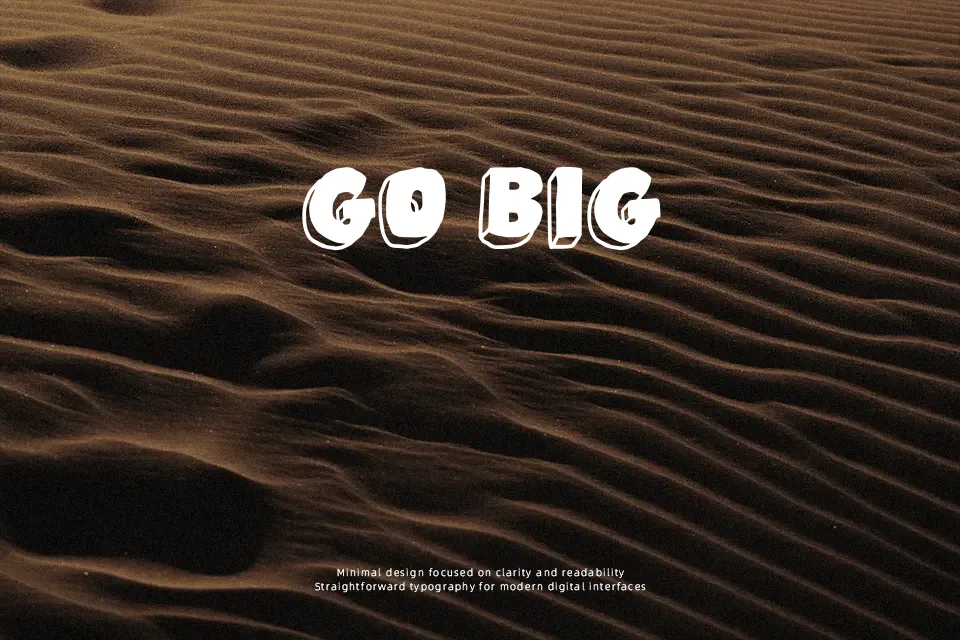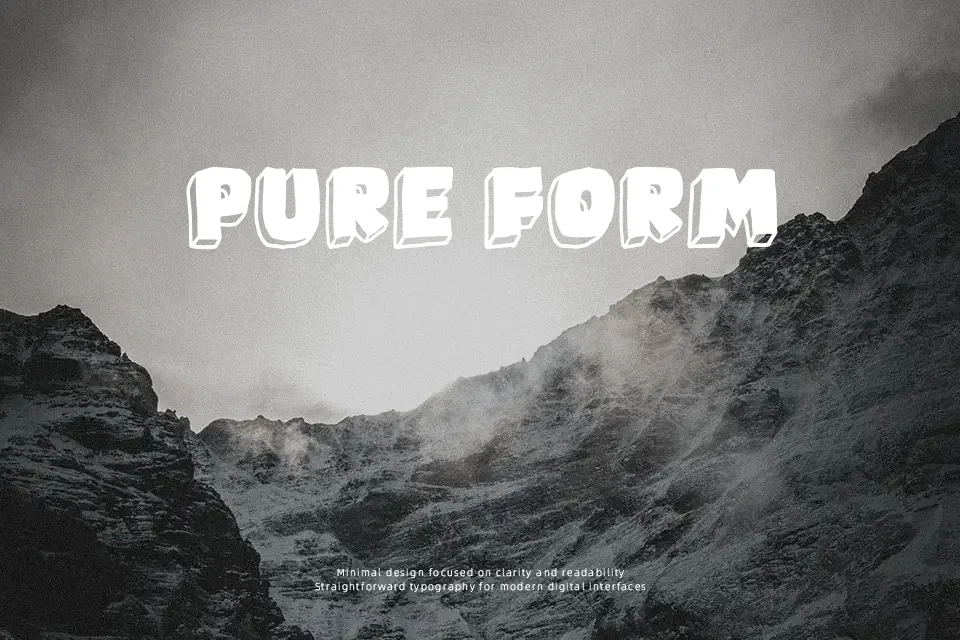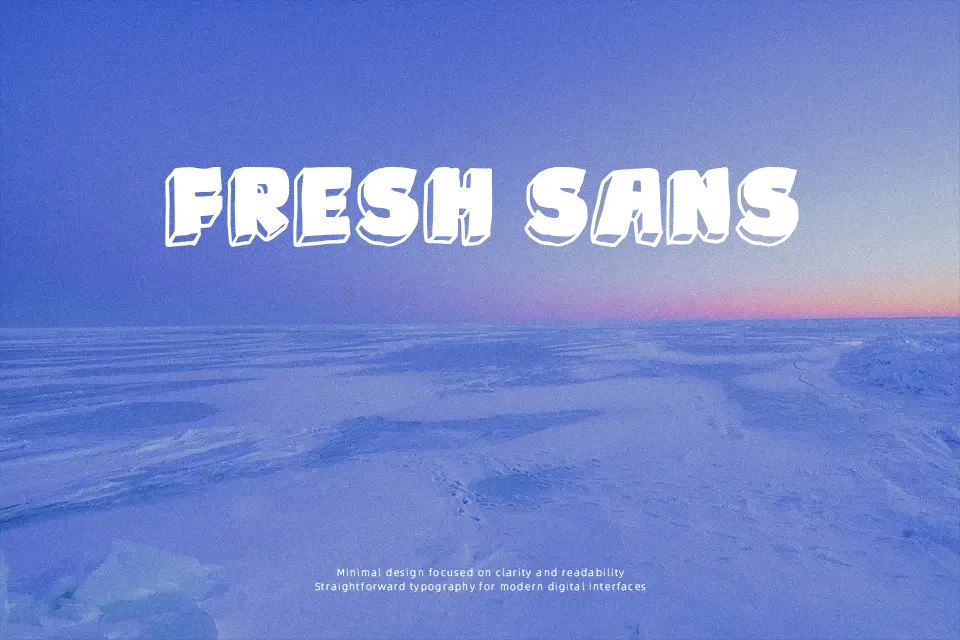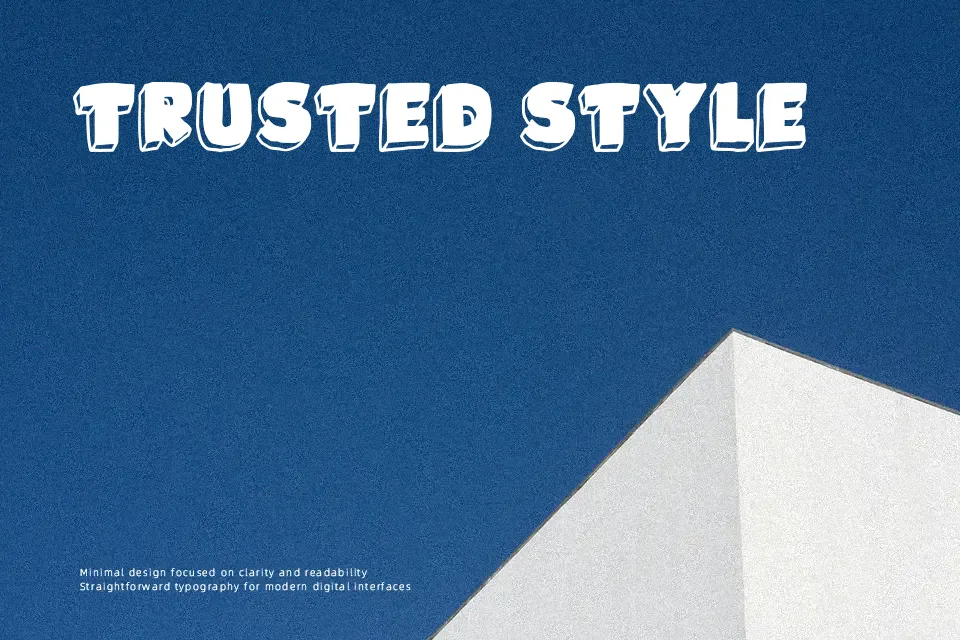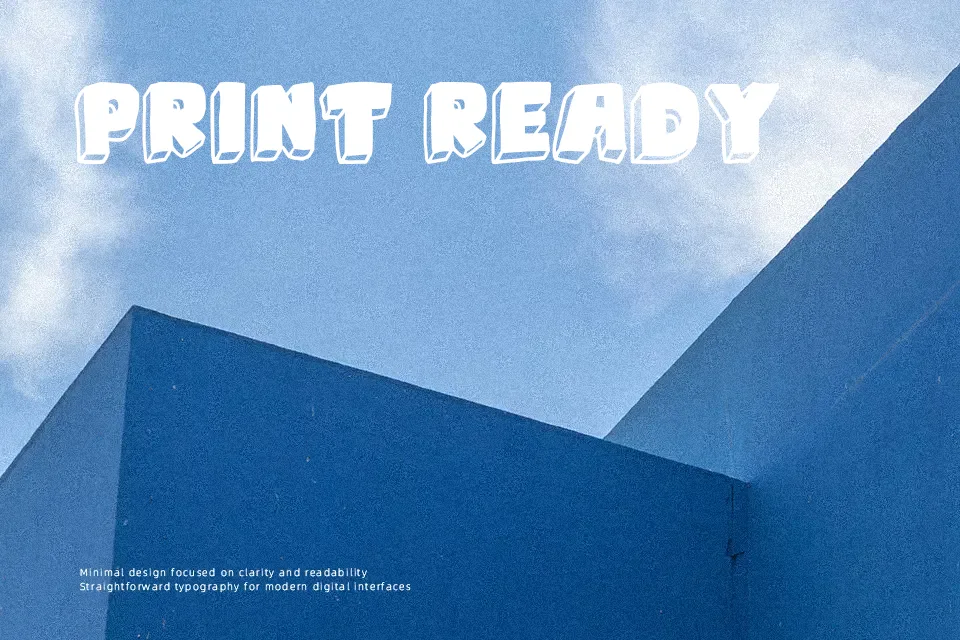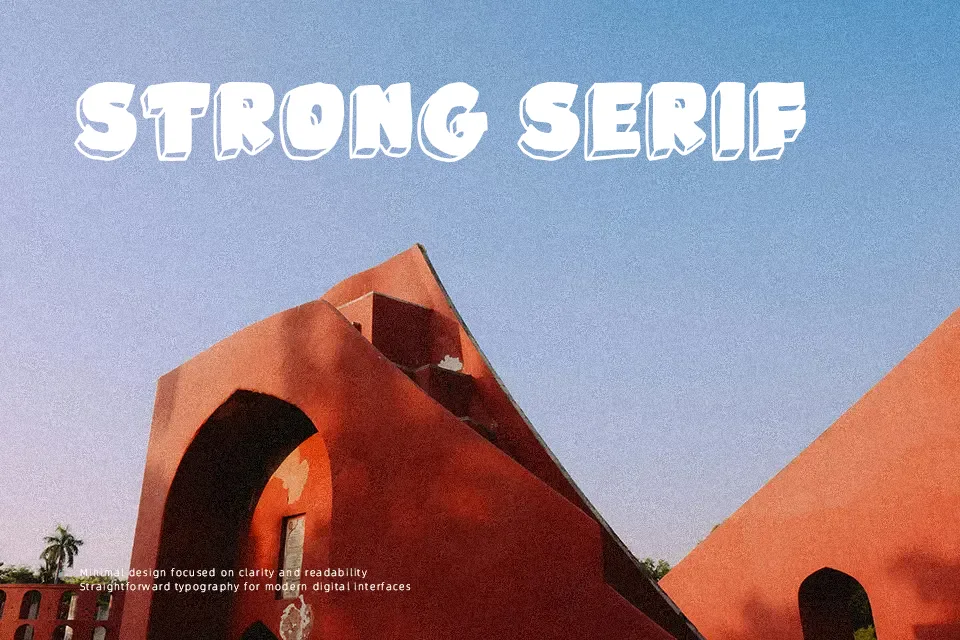
Playful Boxes Font
Designed by Eko Bimantara
Playful Boxes Font uses chunky, box-built characters with bold outlines, squared proportions, and irregular interior details that give each glyph a hand-drawn cartoon feel. The letterforms have broad shapes and visibly open spacing, helping short words remain distinct in large display settings. Uppercase, lowercase, numerals, and basic punctuation follow the same playful constructed approach. It works best for titles that need a casual visual rhythm rather than a polished text tone. The strong outlines hold attention in posters and labels, but the decorative interiors become tiring in small copy or long passages.
Best For: children’s activity posters,game title graphics,playful product packaging,social media headlines
Not Ideal For: long paragraph text,small interface labels,corporate reports,technical manuals